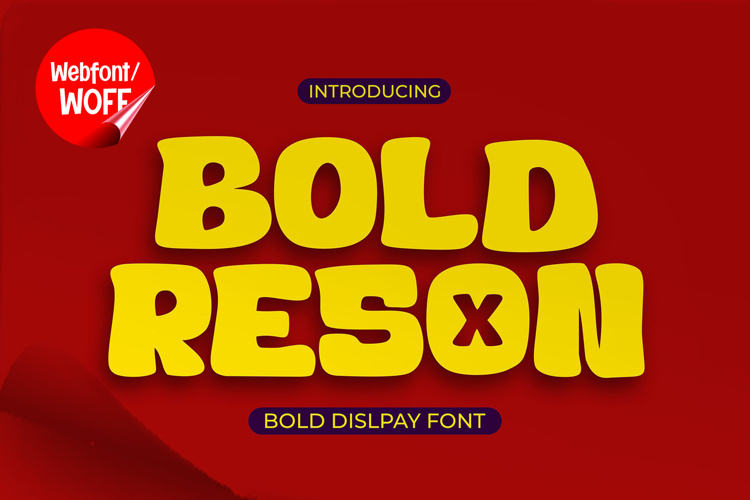
Bold Reson | Amazing Graffiti Webfont for Urban Websites
Bold Reson is an amazing graffiti webfont designed to bring strong visual impact and authentic street style into modern website design. With its bold shapes and expressive lettering, this font captures the energy of graffiti culture while maintaining a clean and structured form suitable for digital use. It is a perfect choice for projects that need a powerful, creative, and eye-catching typographic style.
Bold Reson features a complete set of uppercase characters designed with bold proportions and dynamic graffiti-inspired forms. Each letter is crafted to stand out, making it ideal for headlines, banners, hero sections, and featured content. The strong visual presence helps create a clear hierarchy, guiding attention to key messages and enhancing overall layout impact.
In addition to letters, the font includes numbers and punctuation, allowing flexible usage across various elements of a website. It works effectively for promotional text, pricing displays, event details, and navigation highlights. Each character maintains the same graffiti style, ensuring a cohesive and unified design throughout the interface.
With multilingual support, Bold Reson includes a wide range of accented characters, making it suitable for international websites and global audiences. This allows content to be presented clearly across different languages while preserving the bold graffiti aesthetic. It is a practical solution for creative brands, agencies, and digital platforms targeting diverse users.
The graffiti style of Bold Reson makes it especially suitable for urban-themed websites, streetwear brands, music platforms, gaming interfaces, and creative portfolios. Its bold and energetic design adds personality and movement, helping websites stand out in competitive digital spaces. The expressive forms create a strong visual identity that leaves a lasting impression.
Despite its bold and artistic style, Bold Reson is designed with readability in mind. The spacing and structure of each character are carefully balanced to ensure clarity, particularly in display sizes. This makes it effective for impactful headings and short content elements where both style and legibility are important.
Bold Reson is a webfont that combines graffiti creativity with modern digital functionality. Its bold shapes, expressive style, and urban influence create a distinctive look that enhances website design. For projects that require strong visual impact, creative energy, and a modern street-inspired identity, Bold Reson provides a powerful and engaging typographic solution.